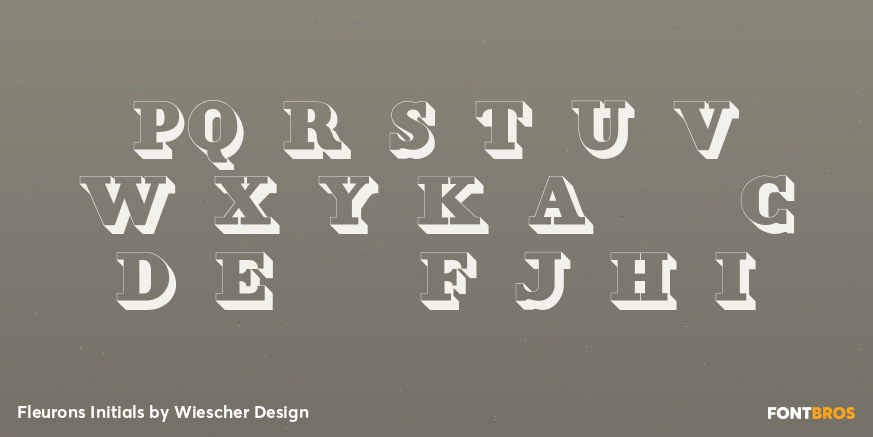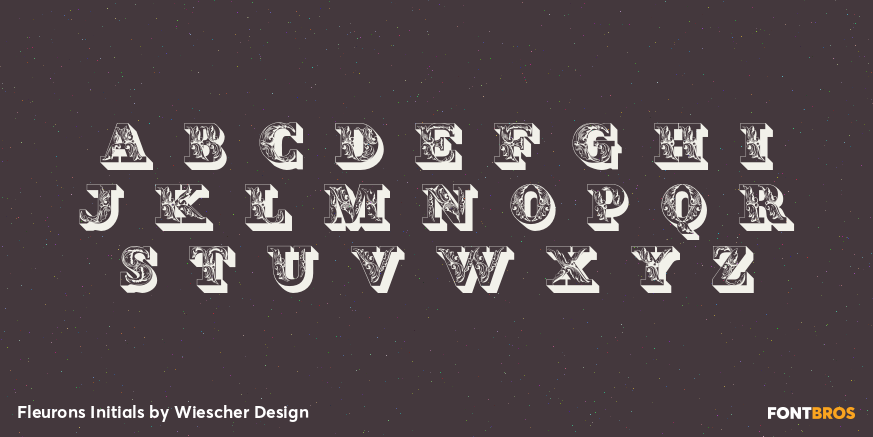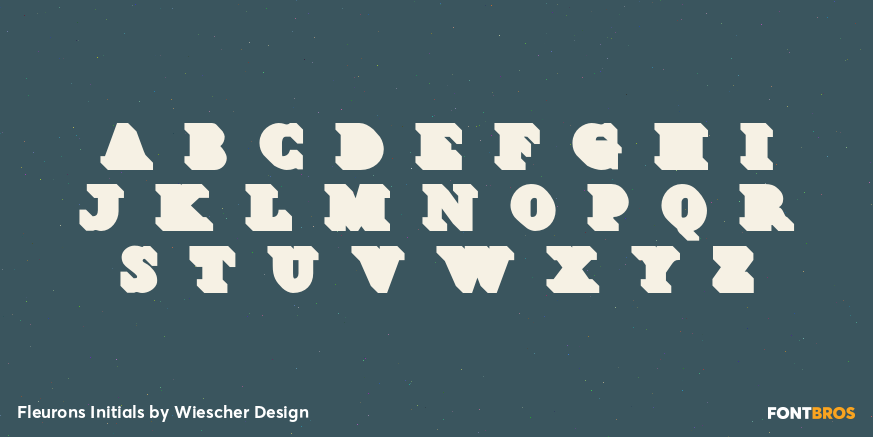
Fleurons Initials
Font Family by Wiescher Design
Fleurons Initials is a set of elegantly decorated blocked initials, reminiscent of old Jazz and Circus Posters.
I have added one set of flat underlays and one of blocked underlays, so you can easily add a little colorful touch here and there. Easy because those underlays have the the same spacing! Have fun.